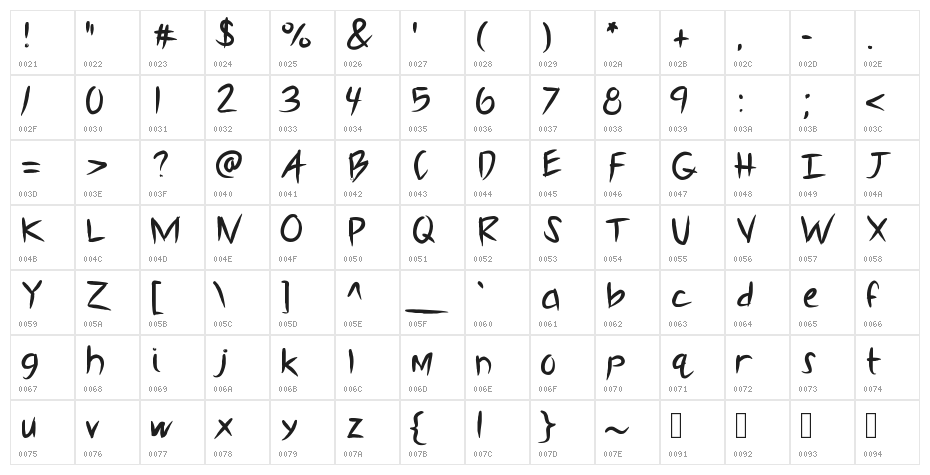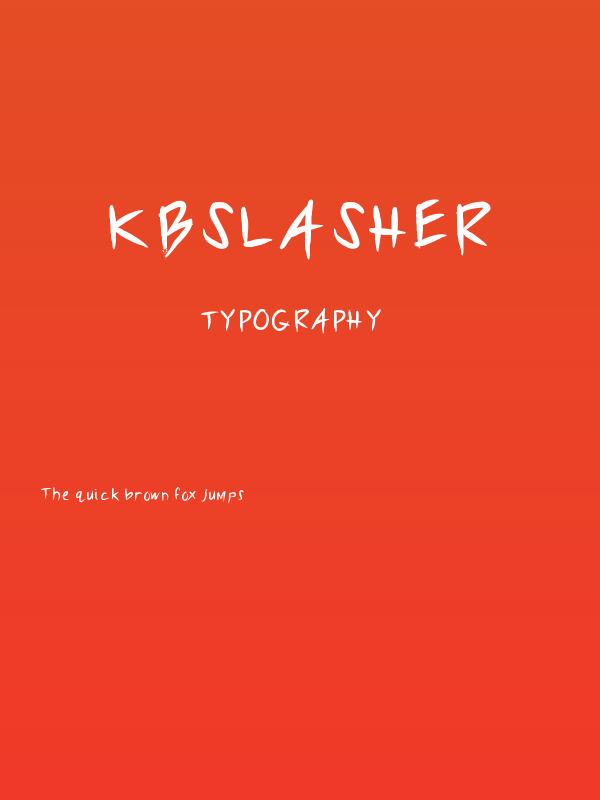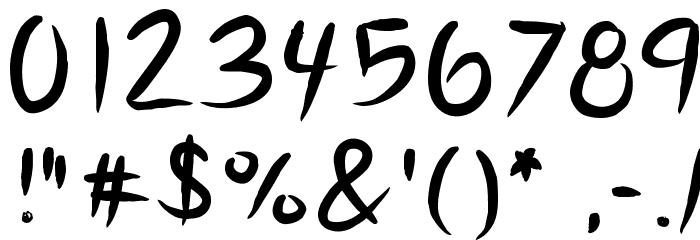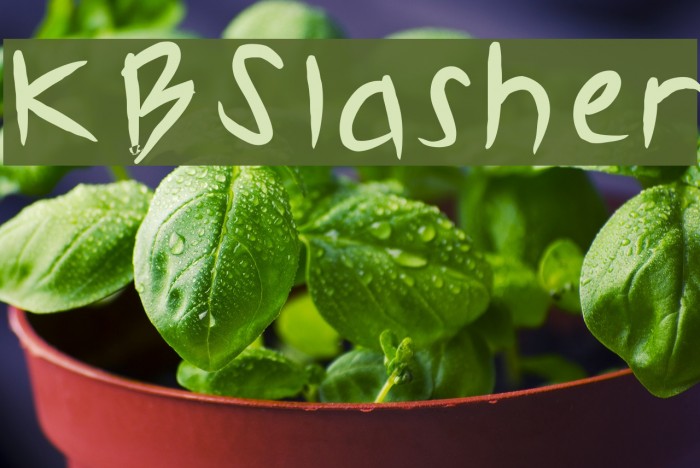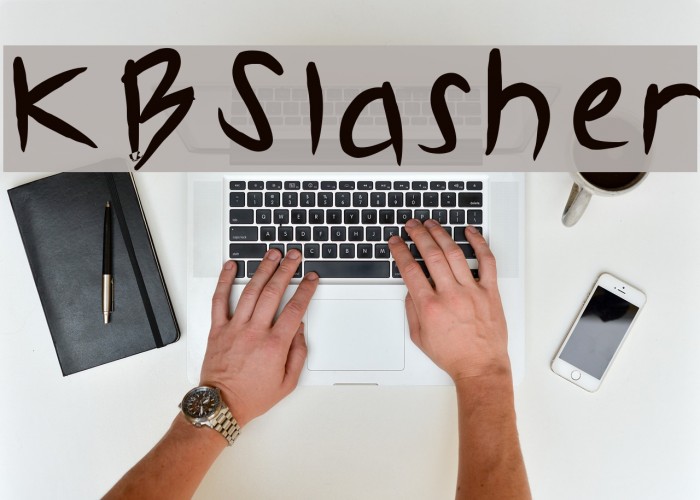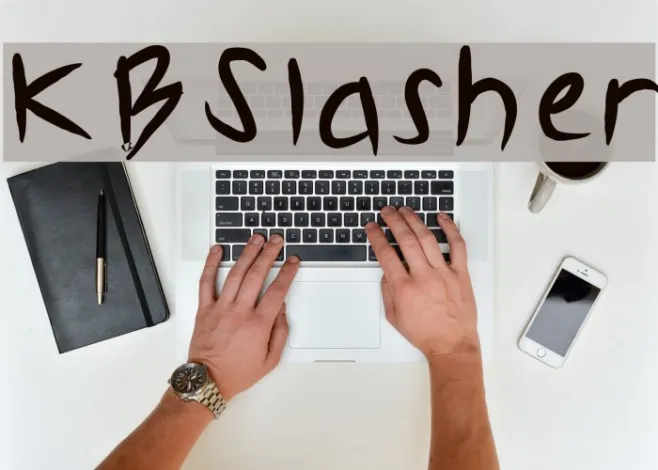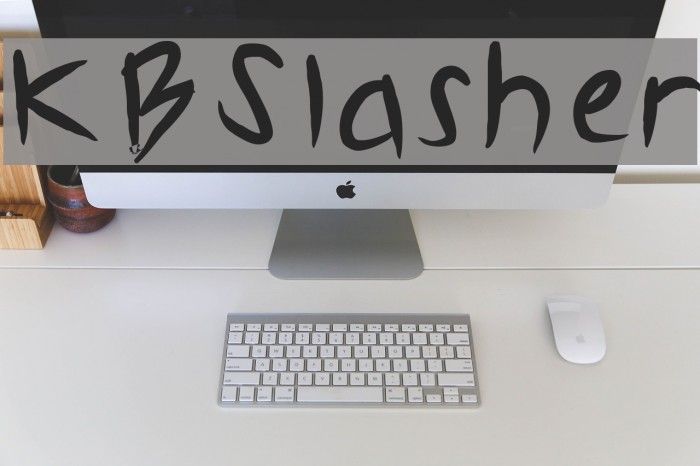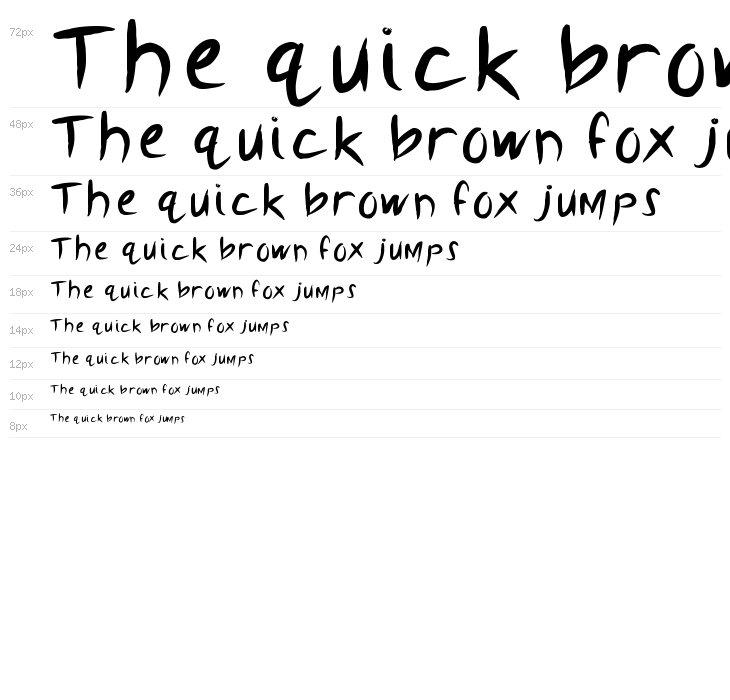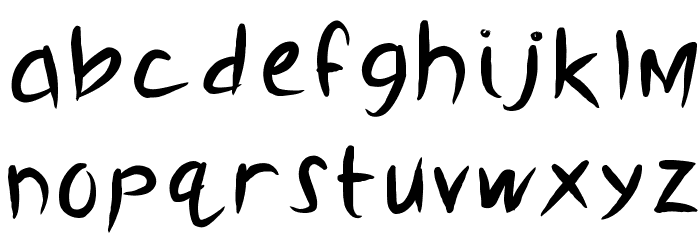
KBSlasher Font
KBSlasher Description
This font exhibits a lively and energetic handwritten style, characterized by its dynamic strokes and slightly irregular letterforms. The uppercase letters are bold and assertive, while the lowercase letters maintain a playful and casual appearance. Numbers and special characters follow the same energetic style, making the font suitable for creative and informal applications. The overall look is reminiscent of a brush script, with varying stroke widths that add to its expressive nature.